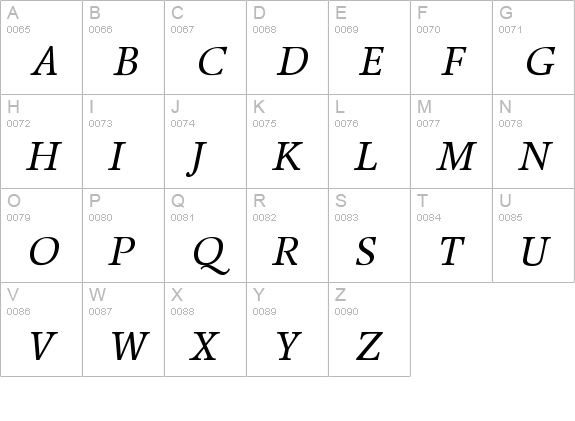
Poppl-Pontifex BE Italic is a distinctive, italic variant in the Poppl typeface family \xE2\x80\x94 well suited to design and typography projects.
Introducing Poppl-Pontifex BE Italic font, a stylish and elegant typeface that exudes sophistication and charm. With its sleek and modern design, this font is perfect for adding a touch of class to any project. The italicized version of the font adds a dynamic flair to your text, making it stand out and capture attention. Poppl-Pontifex BE Italic is not only visually appealing but also highly versatile, suitable for a wide range of design applications including branding, advertising, editorial work, and more. Its smooth curves and intricate details make it a standout choice for those looking to elevate their typography game. The best part? Poppl-Pontifex BE Italic font is completely free to download at FontsMarket.com. So whether you're a professional designer, a student, or someone who just loves experimenting with typography, this font is readily available for you to use in your projects. Don't miss out on the opportunity to enhance your designs with this beautiful and free font. Download it today and let your creativity shine!